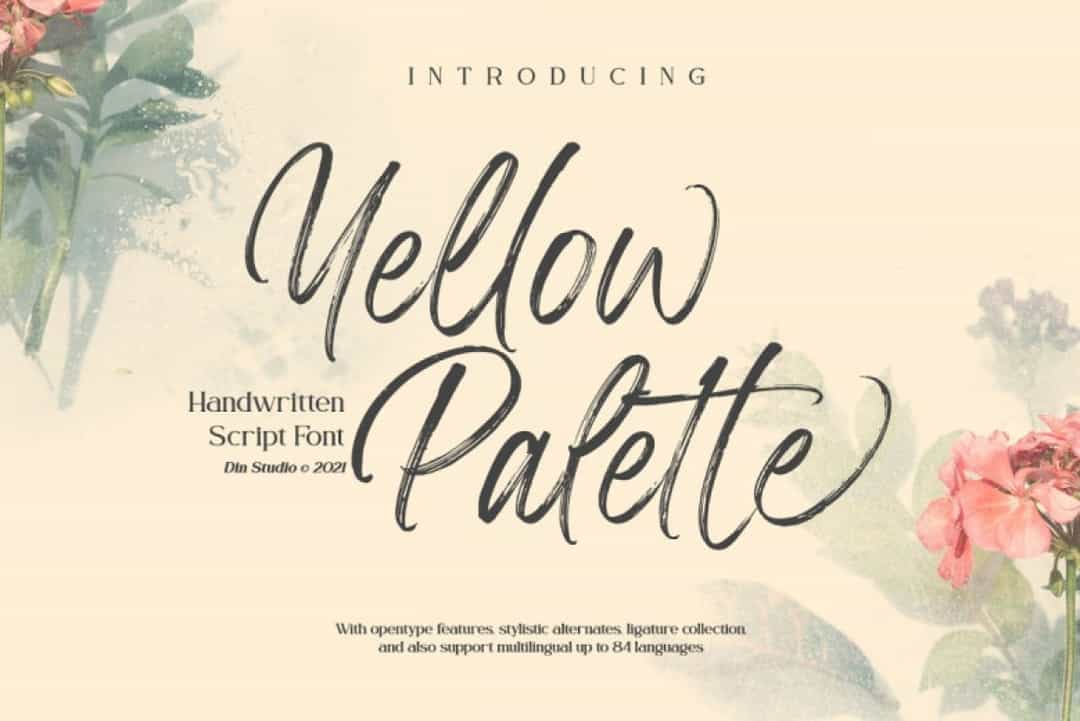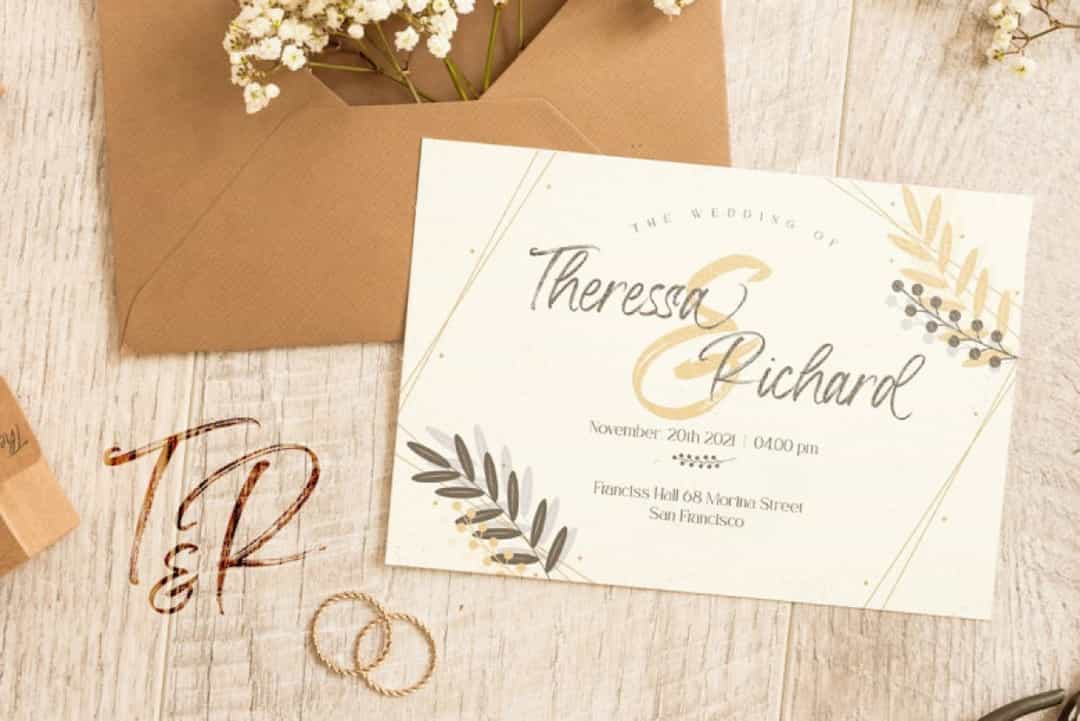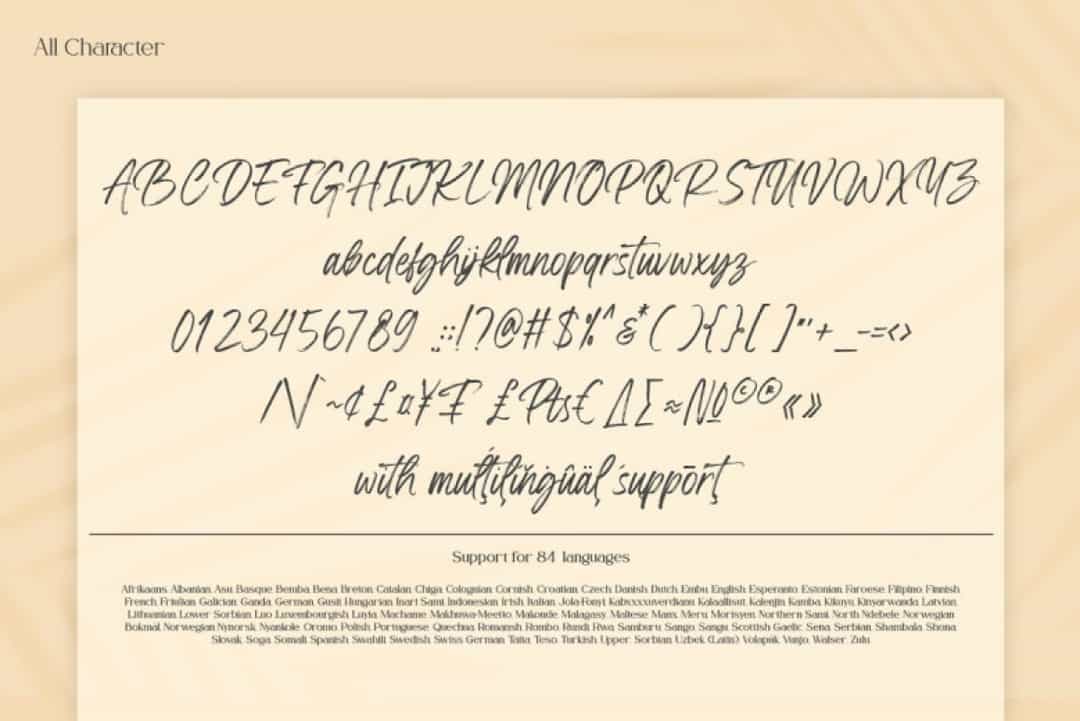
Yellow Palette is an exquisite handwritten brush font designed with a modern aesthetic, creating an enchanting contemporary appearance. Perfect for anything adventurous and precise, its every curve and stroke were intended to bring joy and elegance. A real eye-catcher in presentations, design branding projects, quotes/invitations for events/web-based illustrations etc.